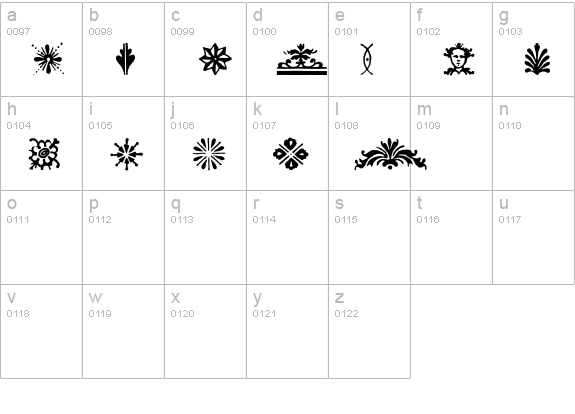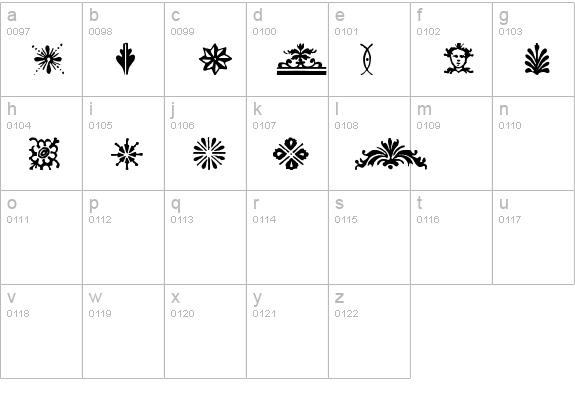
BodoniEF-Ornaments is a stunning decorative font that exudes elegance and sophistication. With its intricate and ornate designs, this font is perfect for adding a touch of luxury to your projects. The delicate swirls and flourishes of BodoniEF-Ornaments will beautifully complement any design, making it a versatile choice for invitations, branding, and more. What makes BodoniEF-Ornaments even more appealing is that it is completely free to use. Yes, you read that right - this exquisite font is freely available for download at FontsMarket.com. So go ahead and elevate your creations with the timeless beauty of BodoniEF-Ornaments.